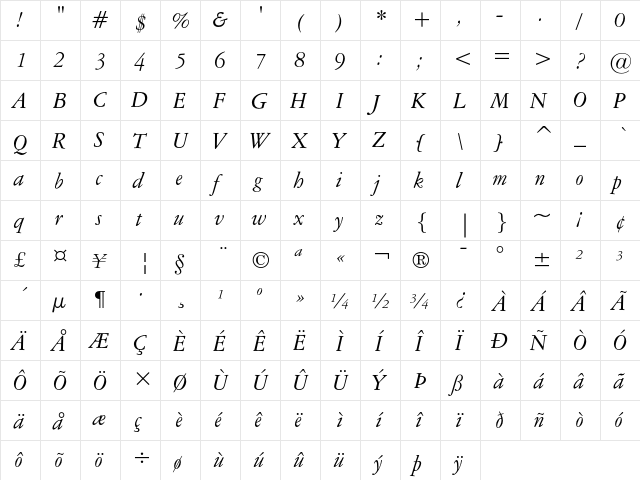
American Garamond Italic
Design Context for American Garamond Typeface
American Garamond offers clean, dependable letterforms without strong stylistic allegiance, making it a practical choice for designers who need flexibility. The dynamic lean of this cut emphasises speed and emphasis in any layout.
Pro Tip: Try American Garamond for annotation and caption copy alongside an upright companion — the contrast in angle creates a dynamic but ordered typographic system.